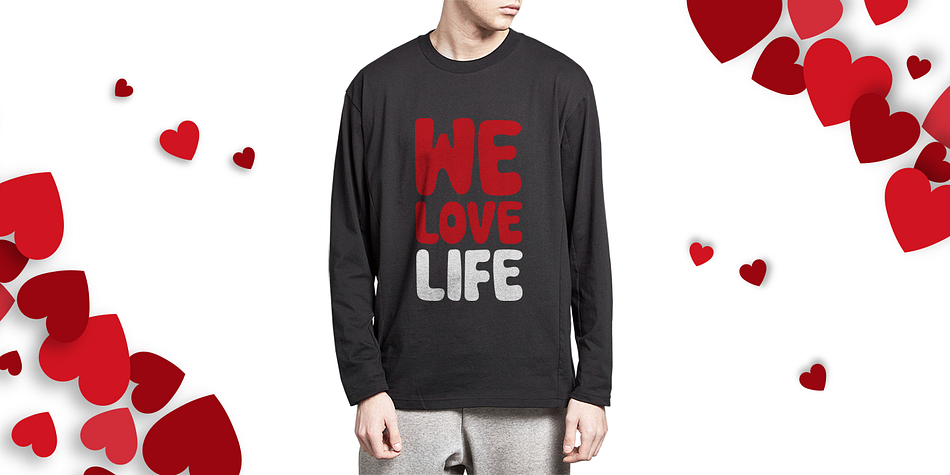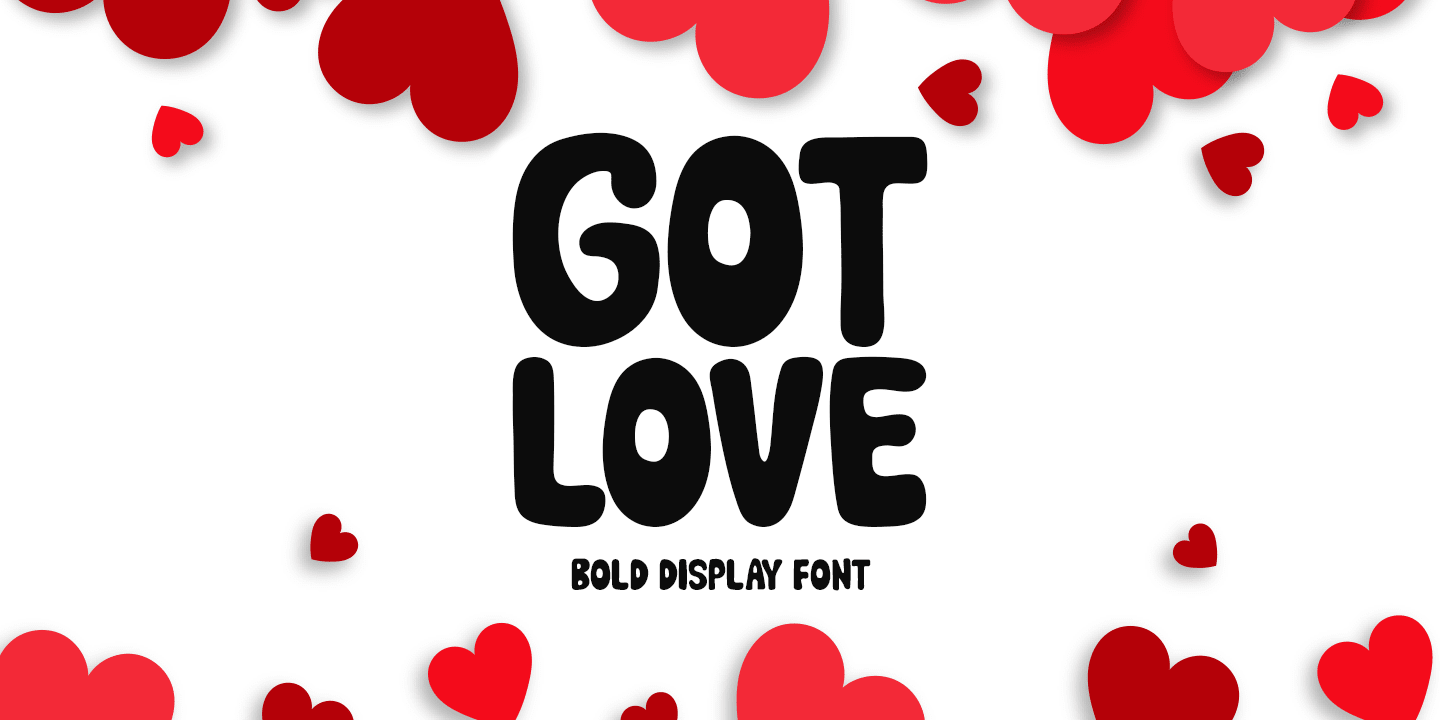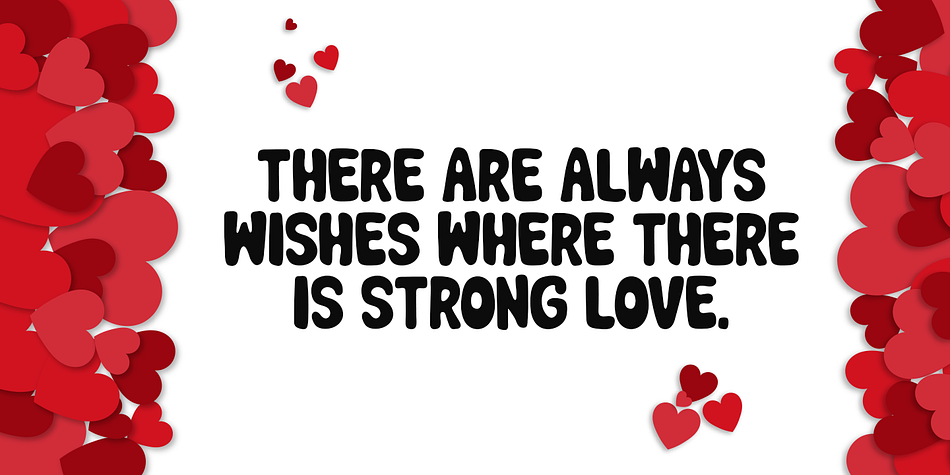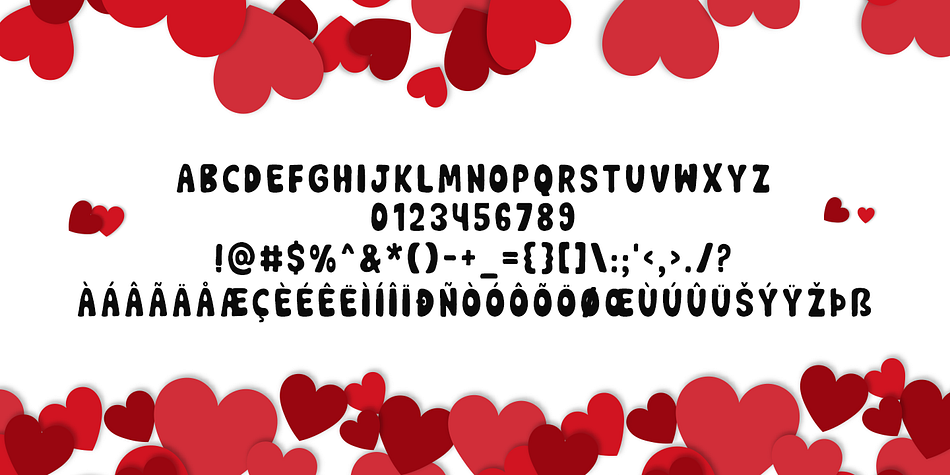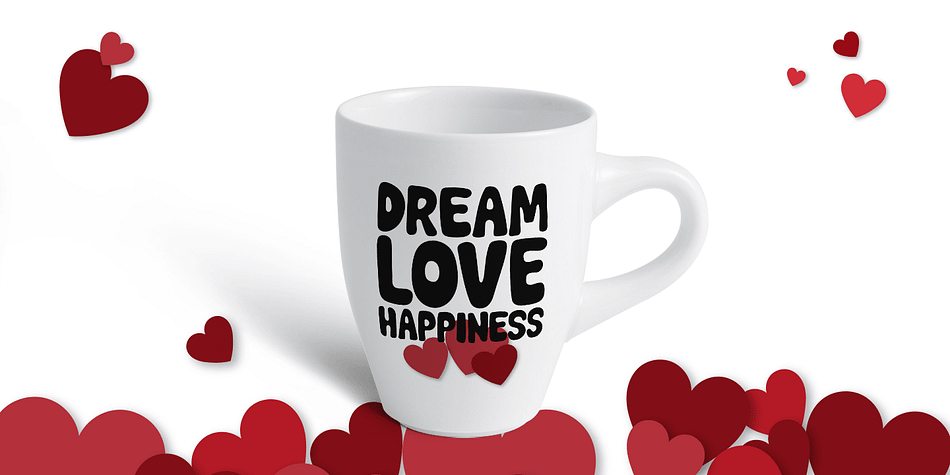
GOT LOVE
Designed by Md. Shohail Bhuiyan, Got Love is a display sans, hand display and retro font family published by Seemly Fonts.
A beautiful display font is called Got Love. Add it to your original ideas to see how it helps them stand out since it can be readily suited to a huge range of projects.